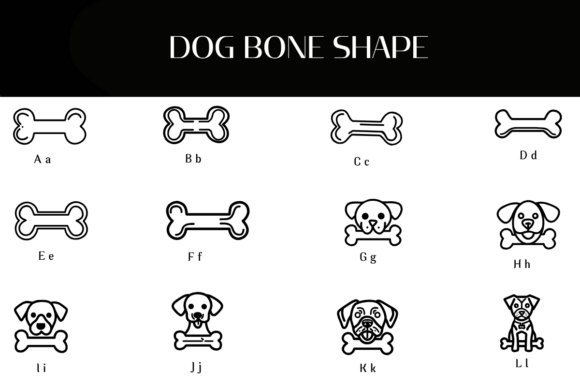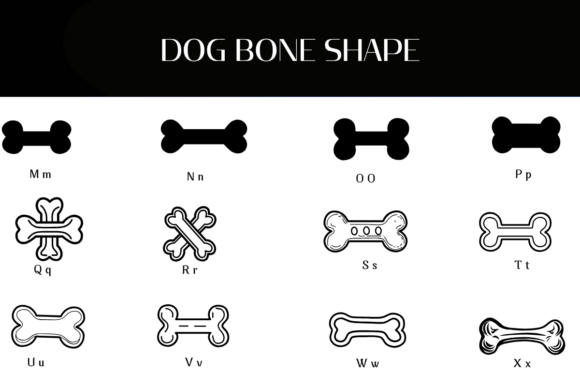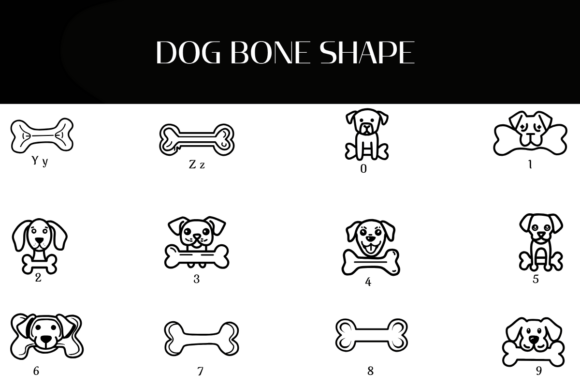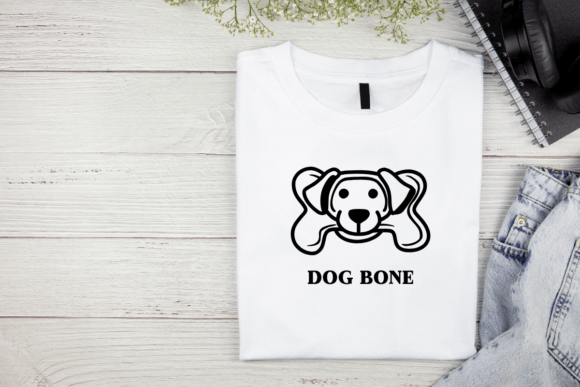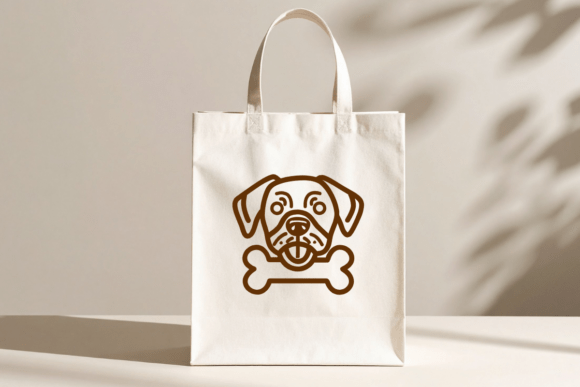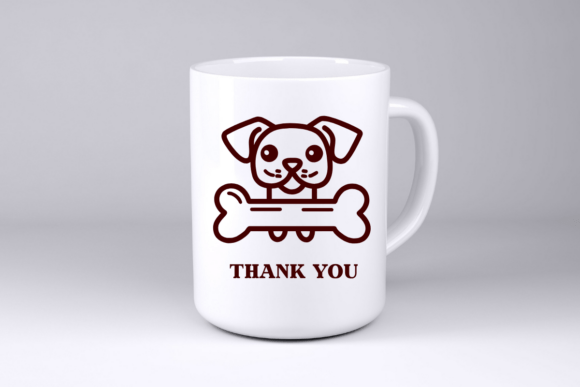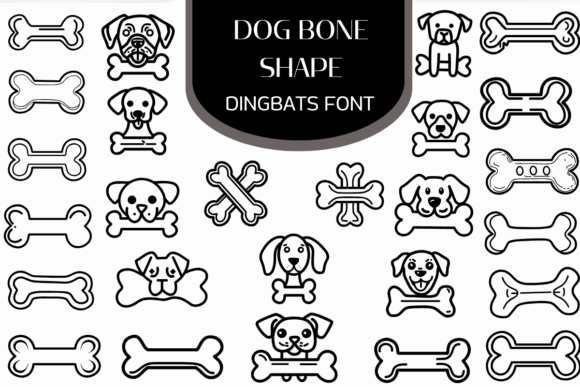
Introducing Dog Bone Shape Font: The Paw-fect Addition to Your Design Arsenal
Are you a designer, crafter, or DIY enthusiast looking for a unique and fun font to add to your creative projects? Look no further than the Dog Bone Shape font! This adorable dingbats font is perfect for a variety of applications, from taking notes and writing diaries to creating greeting cards, banners, and social media posts.
What is Dog Bone Shape Font?
Dog Bone Shape font is a dingbats font, which means it’s a type of font that features symbols, shapes, and icons rather than traditional letters and numbers. This font is specifically designed to feature dog bone shapes, making it a great choice for pet lovers, dog owners, and anyone who wants to add a playful touch to their designs.
Uses for Dog Bone Shape Font
One of the best things about Dog Bone Shape font is its versatility. You can use it for a wide range of projects, including:
- Note-taking and journaling: Add a fun and whimsical touch to your notes and journal entries with the Dog Bone Shape font.
- Greeting cards: Create one-of-a-kind greeting cards for dog lovers and pet owners.
- Banners and signs: Use the Dog Bone Shape font to create eye-catching banners and signs for pet-related events or businesses.
- Social media posts: Add a playful touch to your social media posts and stories with the Dog Bone Shape font.
- Mugs, cards, and shirts: Use the font to create custom merchandise, such as mugs, cards, and shirts, for dog lovers and pet owners.
- Stationery and craft projects: Add a personal touch to your stationery, scrapbooking, and other craft projects with the Dog Bone Shape font.
Why Choose Dog Bone Shape Font?
So why choose the Dog Bone Shape font over other dingbats fonts? Here are just a few reasons:
- Unique and playful design: The Dog Bone Shape font features a fun and playful design that’s sure to stand out.
- Easily readable: Despite its unique design, the Dog Bone Shape font is easy to read and understand, making it perfect for a wide range of applications.
- High-quality design: The font is designed with high-quality and precision, ensuring that it looks great in any size or application.
Tips for Using Dog Bone Shape Font
Here are a few tips for getting the most out of the Dog Bone Shape font:
- Experiment with different sizes and colors: Don’t be afraid to try out different sizes and colors to see what works best for your project.
- Combine with other fonts: Combine the Dog Bone Shape font with other fonts to create a unique and eye-catching design.
- Use for decorative purposes: Use the Dog Bone Shape font for decorative purposes, such as adding a fun and playful touch to your designs.
In conclusion, the Dog Bone Shape font is a fun and versatile dingbats font that’s perfect for designers, crafters, and DIY enthusiasts. With its unique and playful design, high-quality construction, and ease of use, it’s a great addition to any design arsenal. Whether you’re creating greeting cards, banners, social media posts, or custom merchandise, the Dog Bone Shape font is sure to add a paw-fect touch to your designs.